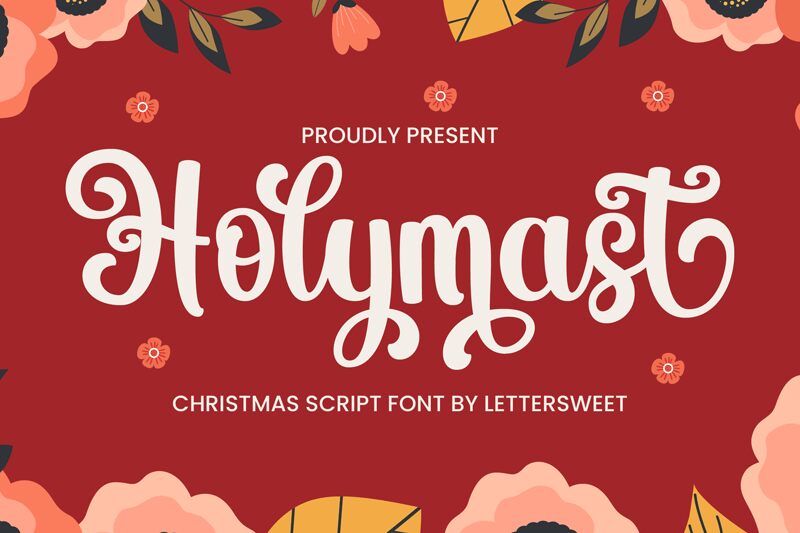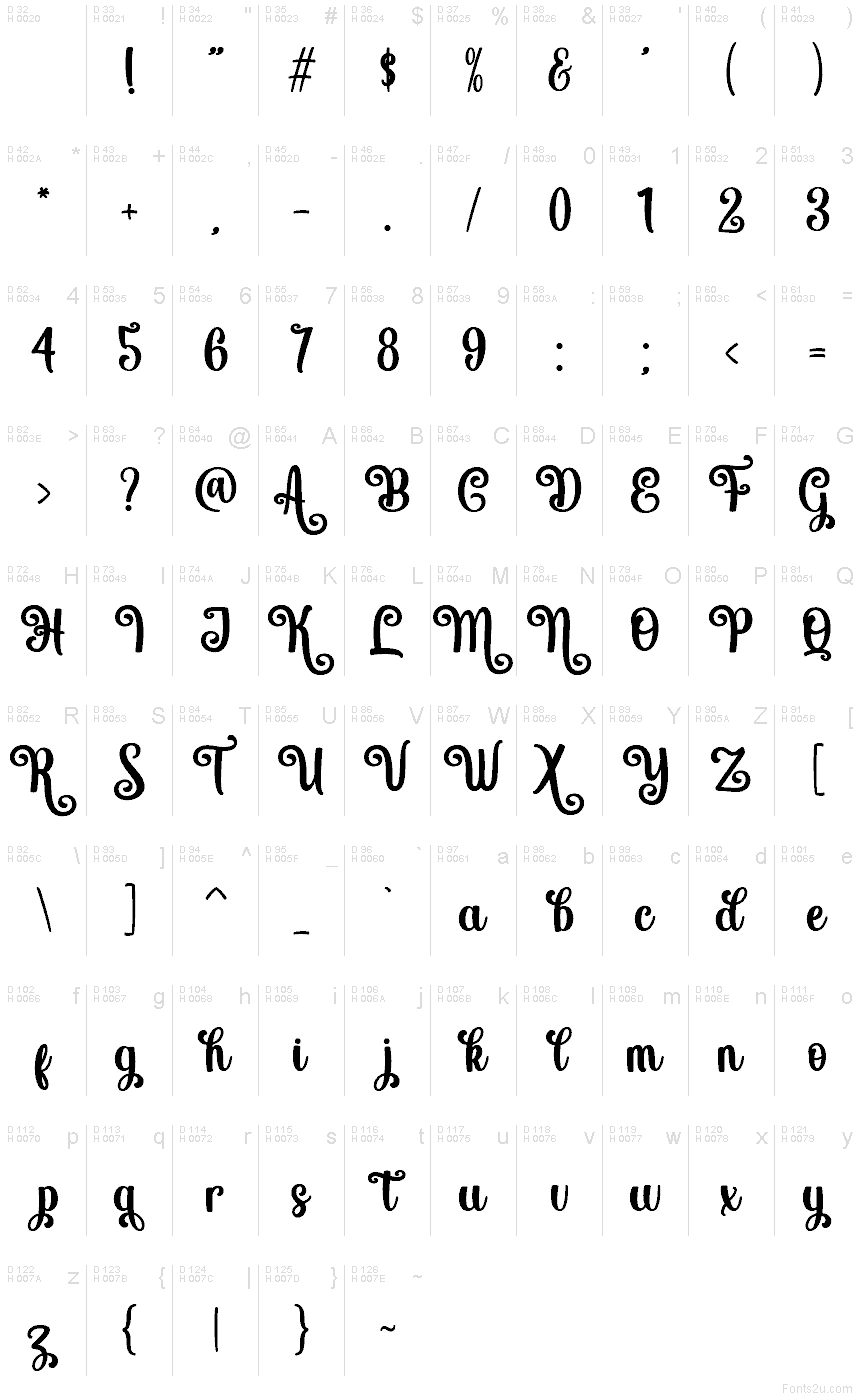
Holymast font by Lettersweet Studio is a free holiday calligraphy typeface with a cozy, storybook feel. Thick, inky strokes and generous curls make the letters look like they’ve been written with a brush pen on a Christmas card, full of warmth and cheer. The flowing connections and playful swirls keep everything feeling friendly and handcrafted, without becoming fussy or hard to read.
Using Holymast, your Christmas cards, party invitations, gift tags, seasonal logos, social media posts, product packaging, and printable decor all pick up that festive “home-baked” charm. This free font shines as a bold headline or wordmark; pair it with a clean sans serif in small text to keep layouts balanced and easy to skim.